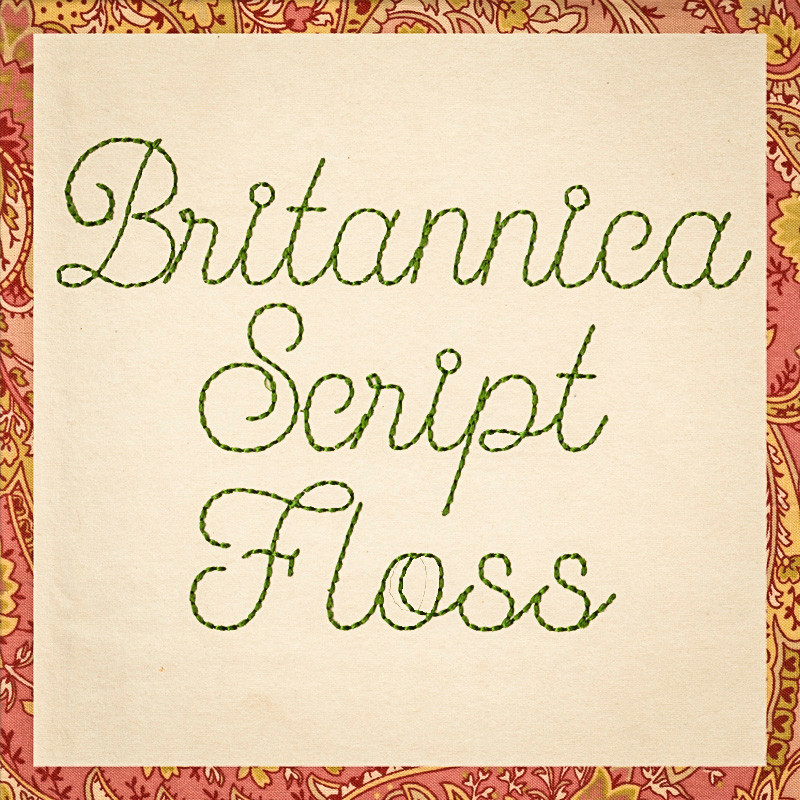
808 Britannica Script Floss Font
808 Britannica Script Floss Font comes in 0.5", 1", 1.5", 2", 2.5", 3", 3.5", 4", 4.5"and 5" heights based on the capital "A". All sizes include uppercase letters, lowercase letters, numbers and 13 punctuation marks. Lowercase letters have left-to-right connection points to reduce floating stitches. All sizes are finished in Floss Stitch. ● See the character chart above to view individual letters and letter placement.